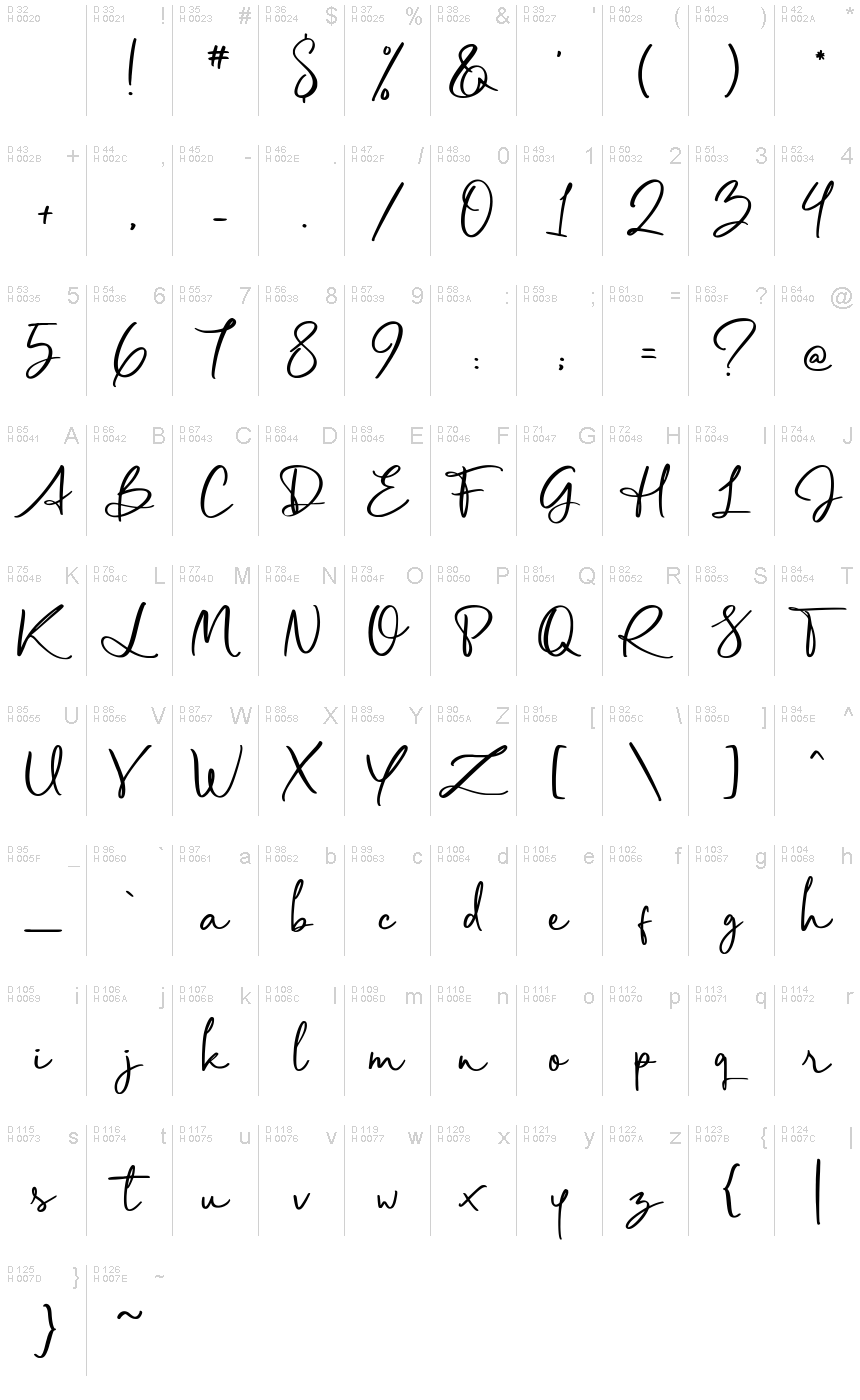
The Addams Family
The Addams Family font, crafted by Cat.B, is a handwritten gem that exudes a sense of individuality and charm. With its fluid strokes and elegant flourishes, it carries a personal touch that mimics the warmth of an intimate note. Its casual yet sophisticated style makes it an ideal choice for invitations, greeting cards, and branding projects seeking a touch of the unique and personal.
This font's whimsical character ensures it stands out in creative applications while maintaining readability, inviting designers to inject personality into their work effortlessly.